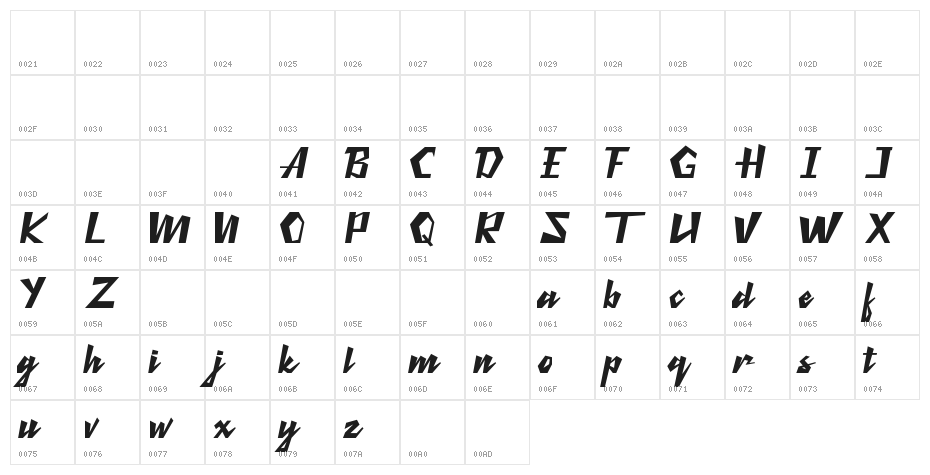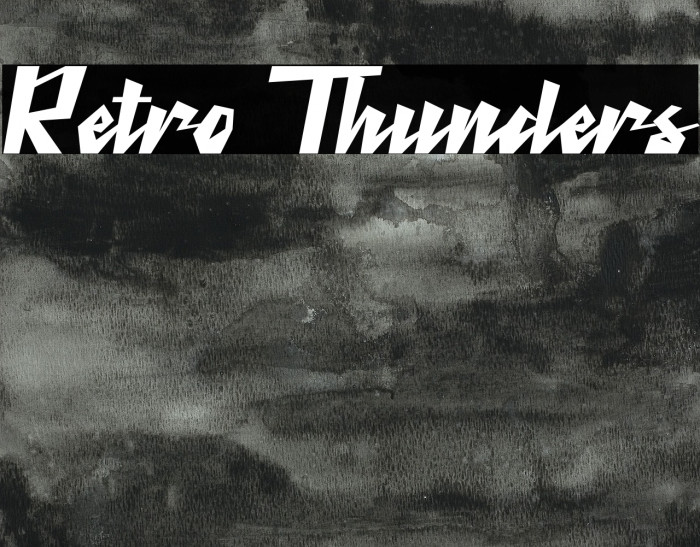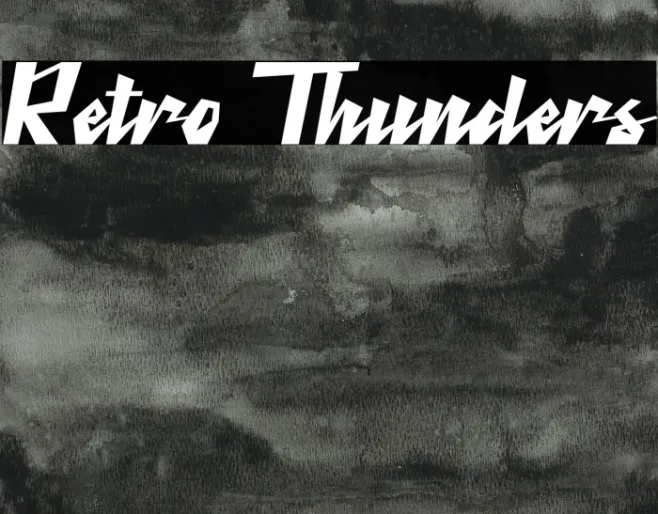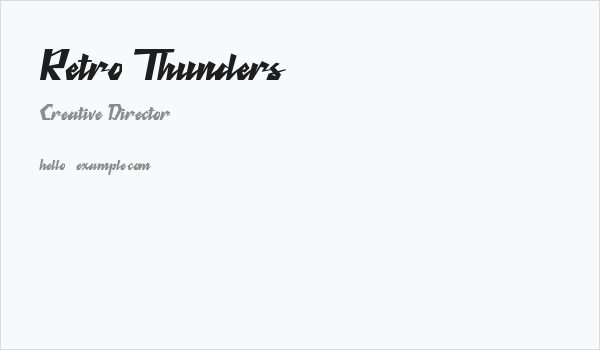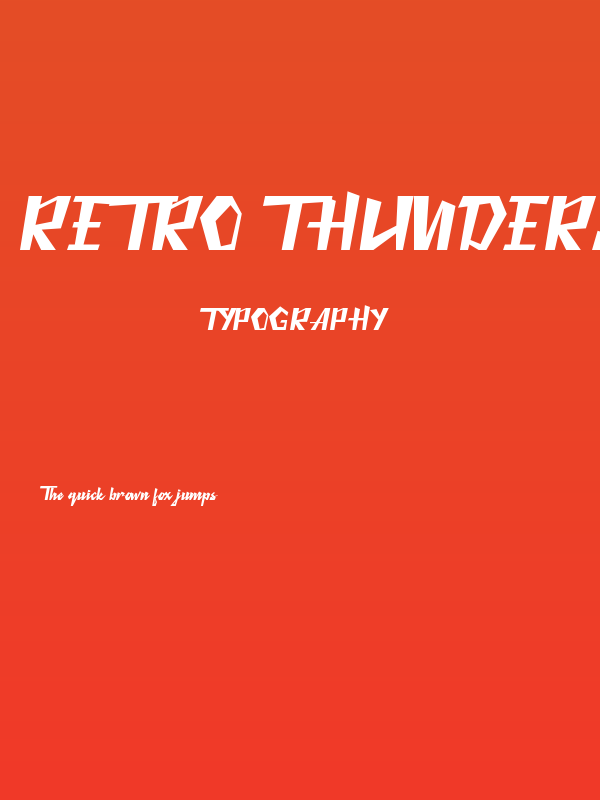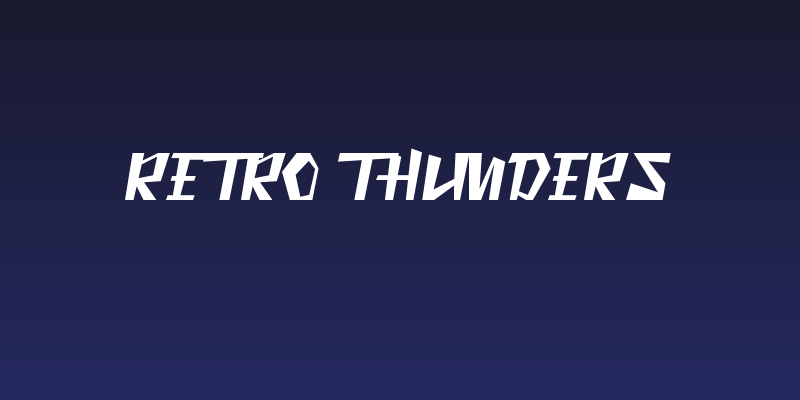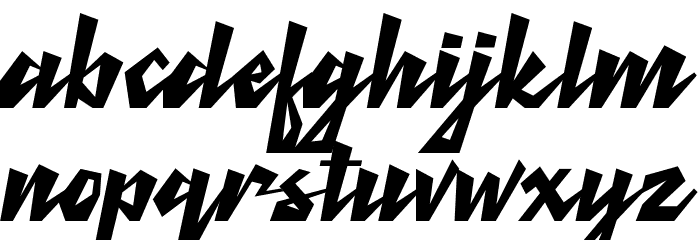
Retro Thunders Font
Retro Thunders Description
This font features a bold and dynamic style with sharp, angular edges that give it a striking and energetic appearance. The uppercase letters are characterized by their geometric forms and pointed serifs, while the lowercase letters maintain a consistent angularity, adding a sense of movement and flair. The numbers and special characters follow the same bold and edgy design, making the font highly cohesive. Its unique style is reminiscent of retro and futuristic themes, making it ideal for projects that require a strong visual impact.
| Overall Style | Retro, Futuristic |
| Proposed Projects | Ideal for music album covers, video game titles, posters, and branding that requires a bold and energetic look. |